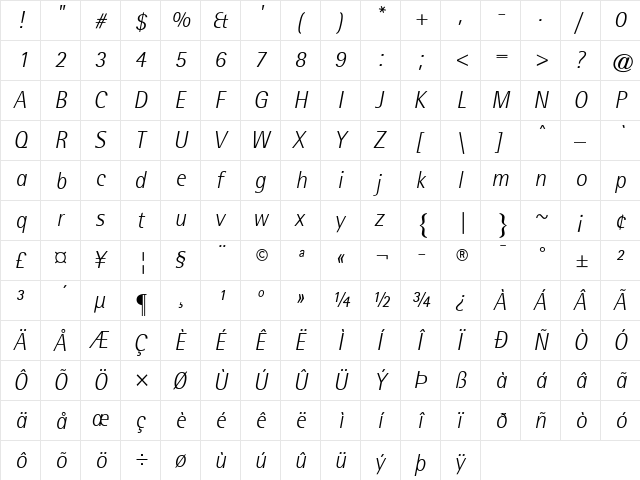
RotisSemiSans Light Italic
Design Context for RotisSemiSans Light Typeface
RotisSemiSans Light is a composed and adaptable typeface that performs quietly and consistently across a wide range of design contexts. Its italic angle brings a sense of urgency and motion to the letterforms. The delicate stroke weight brings airiness and refinement to layouts.
Pro Tip: Use RotisSemiSans Light for emphasis, pull quotes, and subheadings where its slanted energy can add rhythm to the layout.